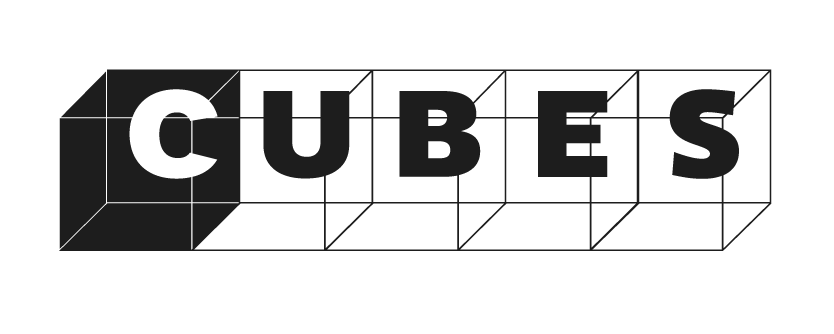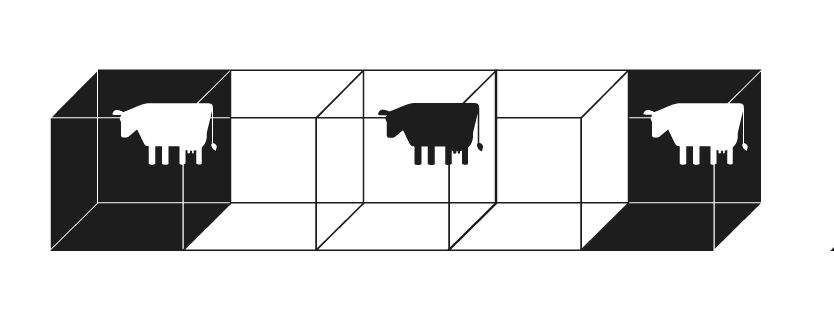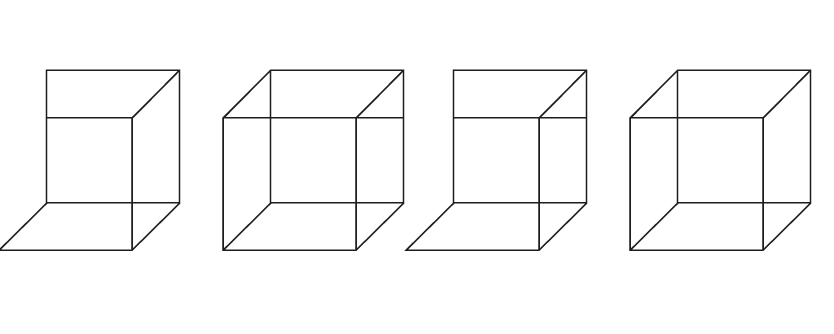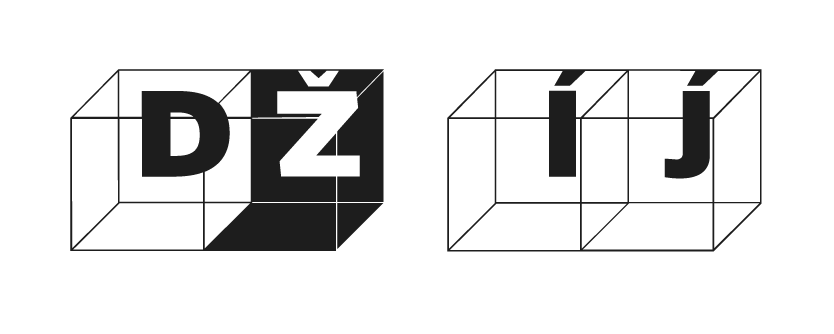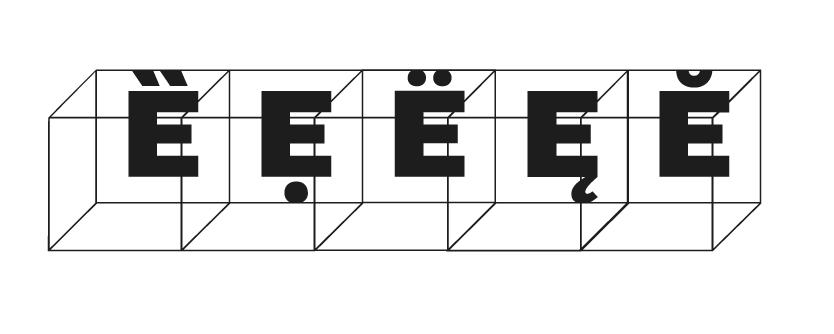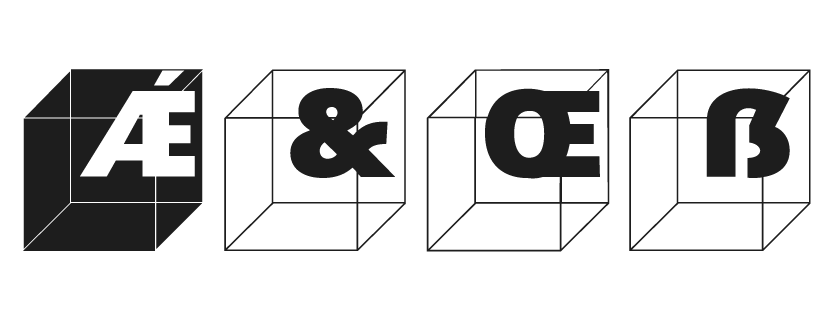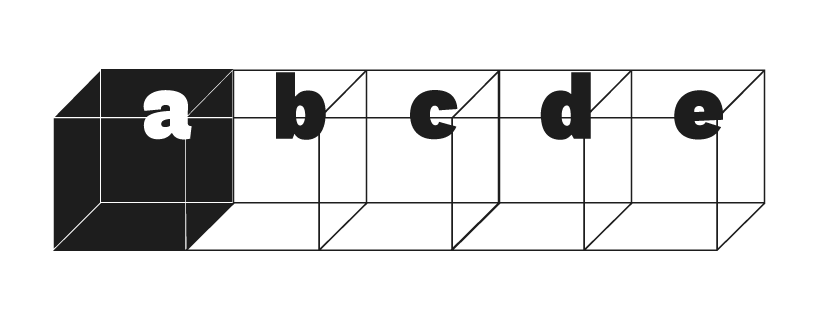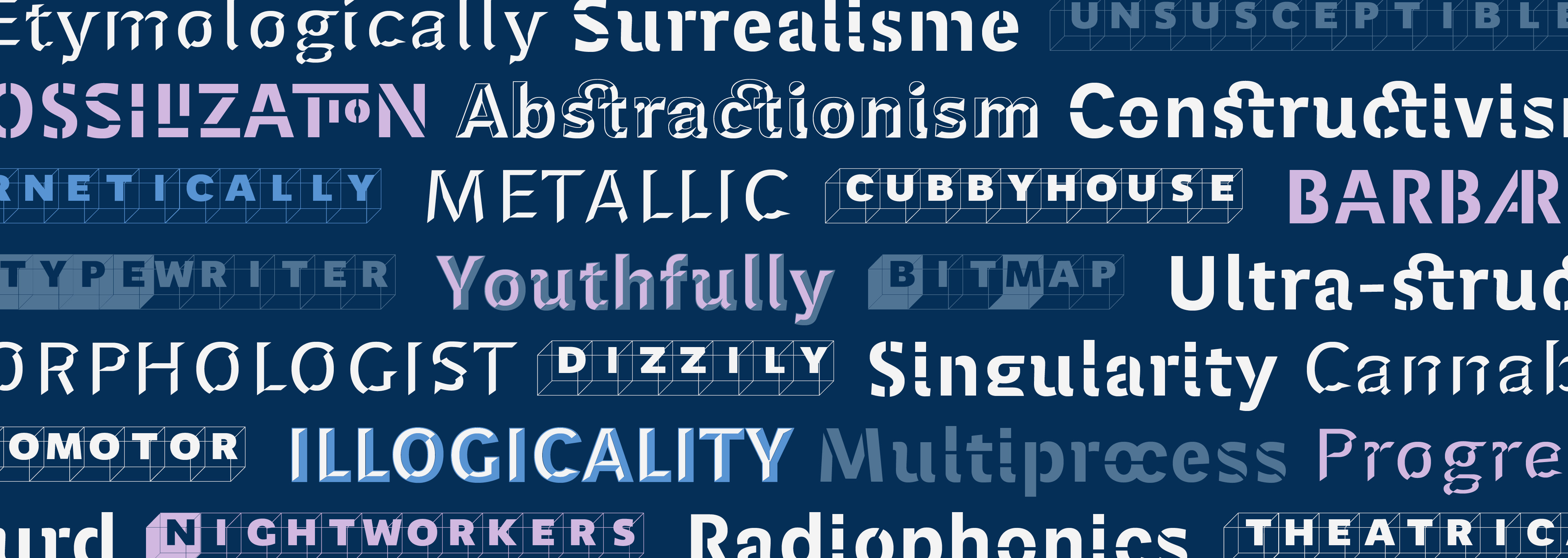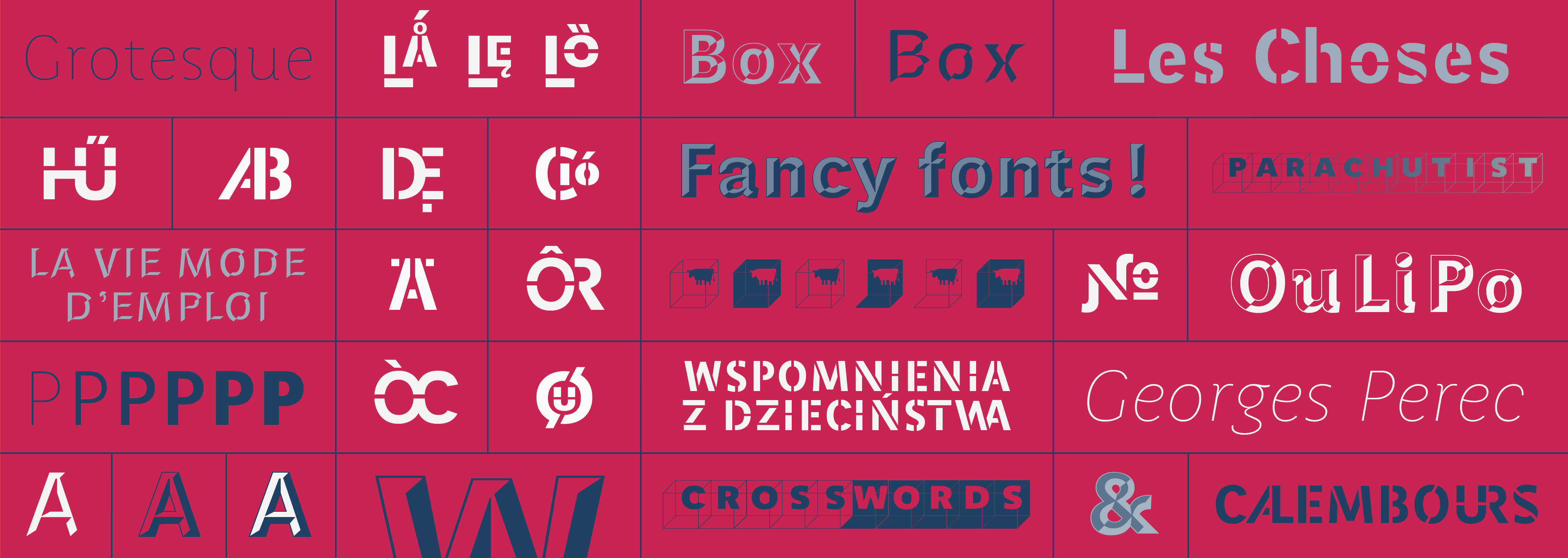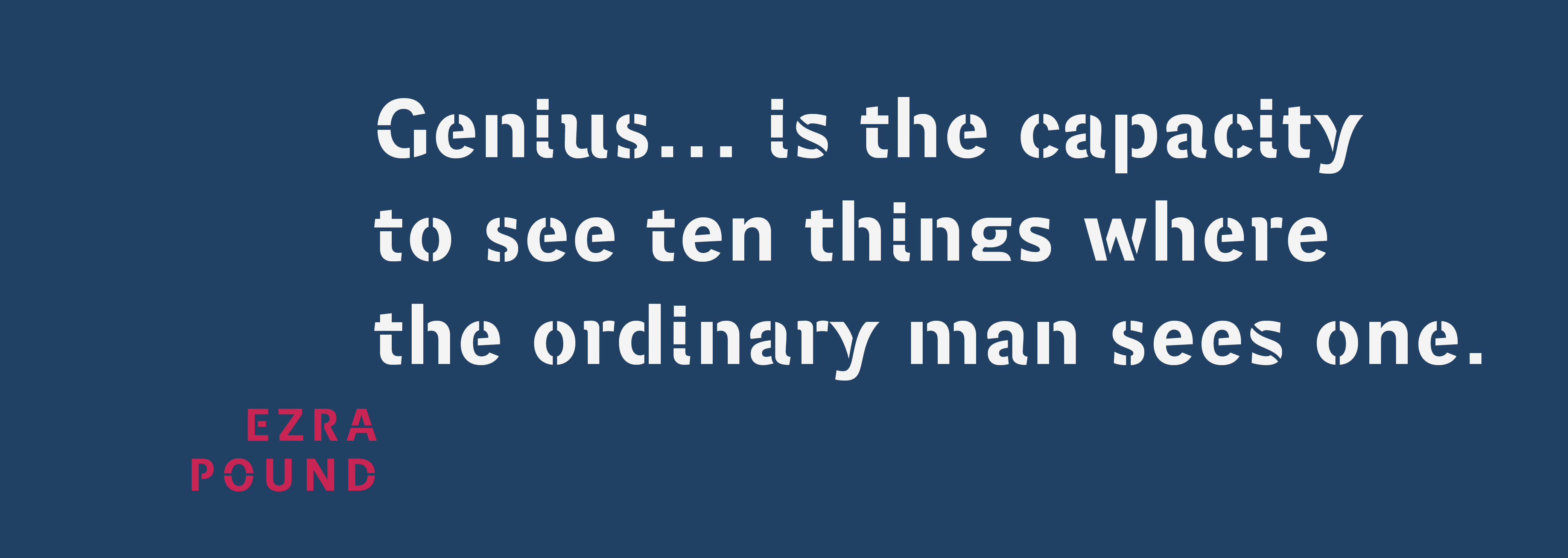
Perec Ludique
Perec Ludique. A playful set
Part of the Perec super family, Perec Ludique is a set of relaxed and playful fonts ideal for more creative text settings. Perec Ludique includes three styles: A tridimensional chrome-like font named Perec Ludique Oncle-Jacques, inspired in the traditional jewelers shop signs, includes two layers for color editing; secondly, a powerful stencil font full of alternate glyphs and ligatures for both lower & uppercases, named Perec Ludique Pochoir (“template” in French); and a fancy cubes font that follows the idea of crossword puzzles, named Perec Ludique Cubes, programmed for smart characters juxtaposition. See their features and specials here below.
Meet the other members of the Perec super family: the regular Perec subfamily is a subtle sanserif grotesque meant for text and display uses, declined in six comprehensive weights of roman, italic and corresponding smallcaps.
Perec Ludique
Designed by Alejandro Lo Celso.
Extended with the help of Francis Ramel.
Programmed by Jorge Iván Moreno Majul.
Characteristics
Language coverage
Latin extended
Characters per font
Perec Ludique OncleJacques Ombre, 700
Perec Ludique OncleJacques Lumière, 700
Perec Ludique Pochoir, 2018
Perec Ludique Cubes, 3824
Styles
Perec Ludique Oncle Jacques
Perec Ludique Pochoir
Perec Ludique Cubes
Features & Specials
2 layers for color editing
Standard Ligatures
Linguistic Ligatures
Discretionary Ligatures
Historical ligatures
Extended diacritics
Extended ordinals
Extended money signs
Lining Figures
OldStyle Figures
Useful symbols
Pochoir: Stencil alts
Standard ligatures
Special ligatures
Extended diacritics
Extended money signs
Lining figures
Oldstyle figures
Tabular lining figs.
Tabular oldstyle figs.
Black & White cubes
programmed for…
clever juxtaposition
linguistic ligatures
Localized digraphs
Extended diacritics
extended ordinals
extended money signs
figures & basic math